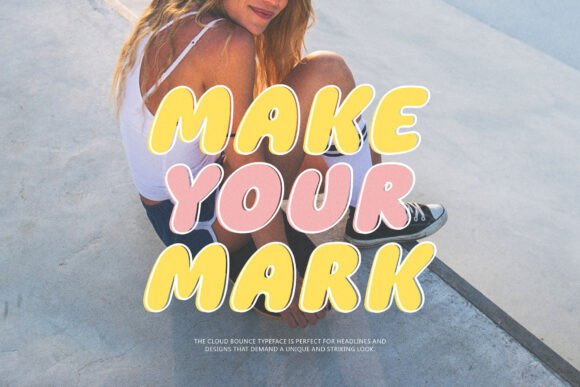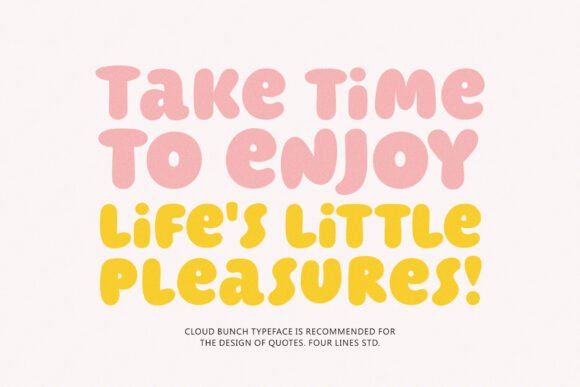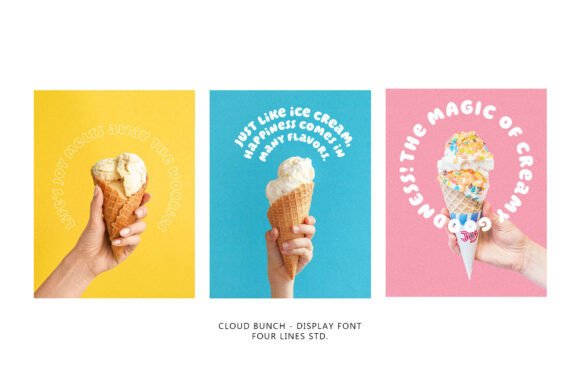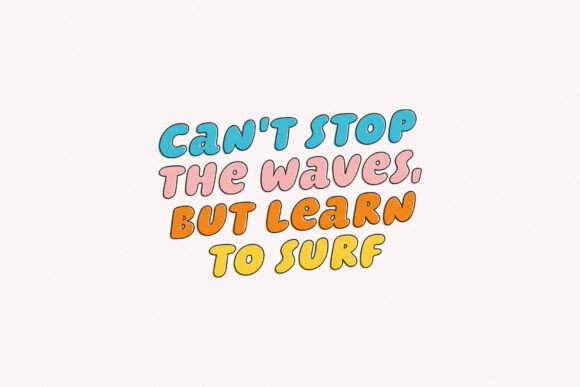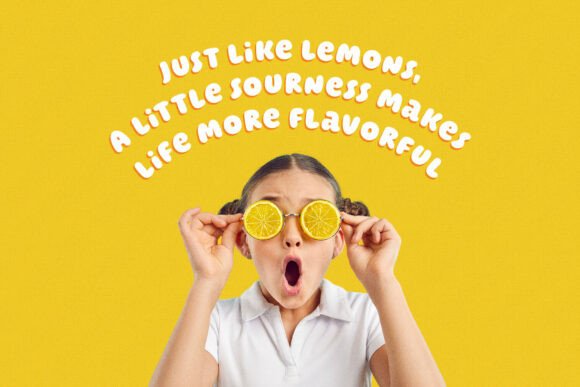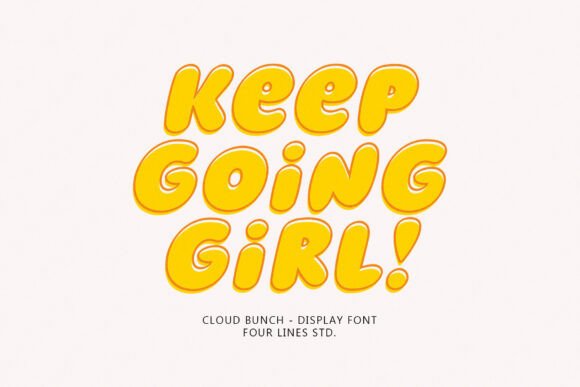
Introducing Cloud Bunch Font: The Playful and Eye-Catching Display Font
Are you looking for a font that can add a touch of fun and casual charm to your designs? Look no further than Cloud Bunch, a playful and eye-catching display font family that’s perfect for creative projects. With its rounded shapes and smooth curves, Cloud Bunch delivers a bubbly, cheerful vibe that’s sure to grab attention.
What Makes Cloud Bunch Special?
Cloud Bunch is not just another font – it’s a font family that comes in four distinct styles: Regular, Italic, Hollow Regular, and Hollow Italic. This versatility makes it perfect for a wide range of design applications, from bold promotional ads to creative craft projects. Whether you’re a designer, crafter, or DIY enthusiast, Cloud Bunch has got you covered.
The Design Behind Cloud Bunch
Cloud Bunch is designed with rounded shapes and smooth curves at every corner, giving it a unique, lively aesthetic that’s both playful and approachable. The font’s smooth curves make it easy to read, while its rounded shapes add a touch of whimsy and fun. This makes Cloud Bunch perfect for designs that need to stand out, such as:
- Bold promotional ads
- Craft projects, such as handmade cards and invitations
- DIY signs and posters
The Benefits of Using Cloud Bunch
So why choose Cloud Bunch for your design projects? Here are just a few benefits of using this versatile font:
- Attention-grabbing: Cloud Bunch is designed to grab attention, making it perfect for bold promotional ads and social media graphics.
- Versatile: With four distinct styles to choose from, Cloud Bunch can be used for a wide range of design applications.
- Easy to read: Despite its playful design, Cloud Bunch is easy to read, making it perfect for designs that need to communicate a message.
- Unique: Cloud Bunch has a unique, lively aesthetic that’s sure to set your designs apart from the crowd.
How to Use Cloud Bunch in Your Designs
Using Cloud Bunch in your designs is easy. Here are a few tips to get you started:
- Pair it with other fonts: Cloud Bunch can be paired with other fonts to create a unique, layered look.
- Use it for headings: Cloud Bunch is perfect for headings and titles, where its bold, playful design can really shine.
- Experiment with colors: Cloud Bunch looks great in a variety of colors, so don’t be afraid to experiment and find the perfect hue for your design.
Cloud Bunch Font Styles
Cloud Bunch comes in four distinct styles:
- Regular: The classic Cloud Bunch style, perfect for designs that need a bold, playful look.
- Italic: A slanted version of the regular style, perfect for adding a touch of whimsy to your designs.
- Hollow Regular: A hollow version of the regular style, perfect for designs that need a bold, outlined look.
- Hollow Italic: A hollow version of the italic style, perfect for adding a touch of whimsy to your designs.
Cloud Bunch is a playful and eye-catching display font family that’s perfect for designers and crafters looking to add a touch of fun and casual charm to their designs. With its rounded shapes, smooth curves, and four distinct styles, Cloud Bunch delivers a bubbly, cheerful vibe that’s sure to grab attention. So why not give Cloud Bunch a try and see how it can elevate your designs?